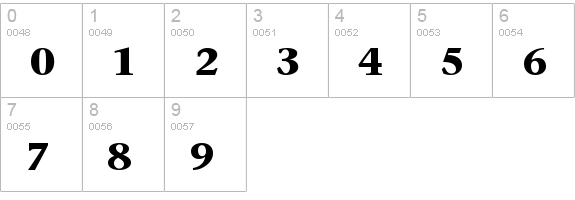
PrudentialHeavy Regular Font Details
PrudentialHeavy Regular is the standard, neutral variant in the PrudentialHeavy typeface family \xE2\x80\x94 well suited to general body text, paragraphs, and standard typographic work.